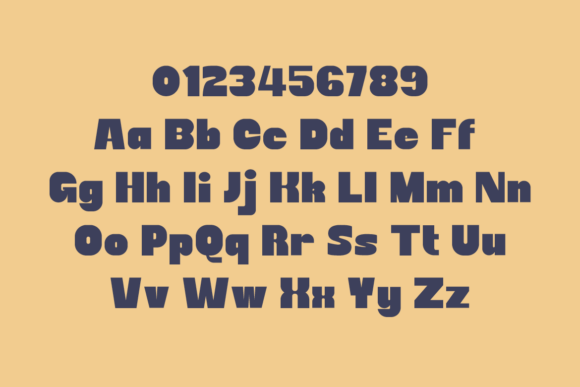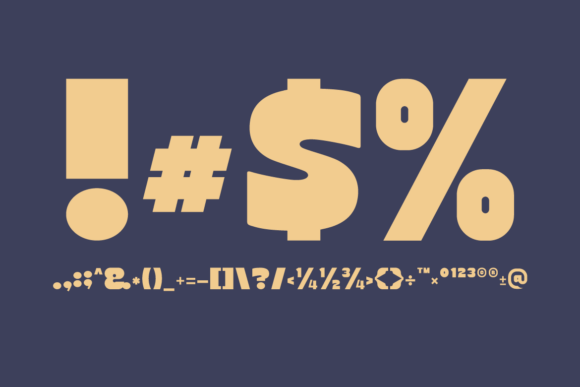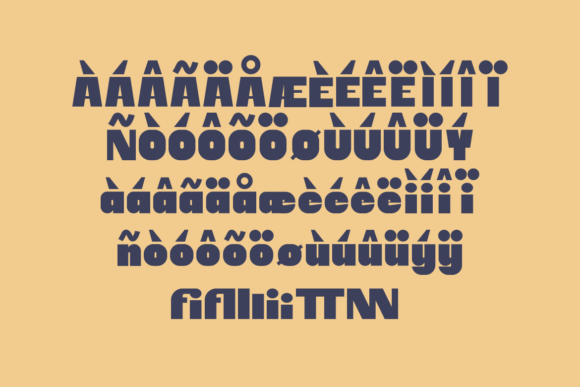
Introduction to Nandour Font
Have you ever been stuck on a creative project, pouring over design options until the perfect font finally jumps out at you? That’s exactly what happened when designers discovered the Nandour Font – a sleek and friendly rounded sans display font that brings a modern yet approachable look to any project. With its soft edges, balanced proportions, and clean structure, Nandour Font is the perfect design resource for creatives looking to elevate their branding, packaging, UI/UX design, social media graphics, and editorial layouts.
Key Features of Nandour Font
- High-quality font design ideal for creative projects and design resources.
- Designed with a unique, modern aesthetic that is perfect for a wide range of creative applications.
- Includes a range of glyphs and characters, making it a versatile design resource.
Honest Review: Nandour Font
As a designer, I’m always on the lookout for high-quality design resources to enhance my creative projects. Recently, I stumbled upon the Nandour Font, and I’m excited to share my honest review.
What works well: ✨ The Nandour Font is incredibly versatile and can be used for a wide range of creative projects, from branding and marketing materials to digital products and print designs. The font is available for free download, making it an excellent addition to any designer’s toolkit. The high-quality design and transparent background make it easy to integrate into any design.
The Nandour Font is also incredibly customizable, with a range of styles and weights to choose from. This makes it easy to tailor the font to fit your specific design needs.
Overall, I’m impressed with the Nandour Font and would highly recommend it to designers looking for a high-quality, versatile font for their creative projects.
- Customizable styles and weights
Tips for Getting the Most Out of Nandour Font
For optimal results, use the Nandour Font in conjunction with other high-quality design resources. Experiment with different font sizes, colors, and styles to create unique and eye-catching designs.
The Nandour Font is ideal for use in a variety of creative projects, including logos, business cards, and social media graphics. Its high-quality design and transparent background make it perfect for use in digital design projects.